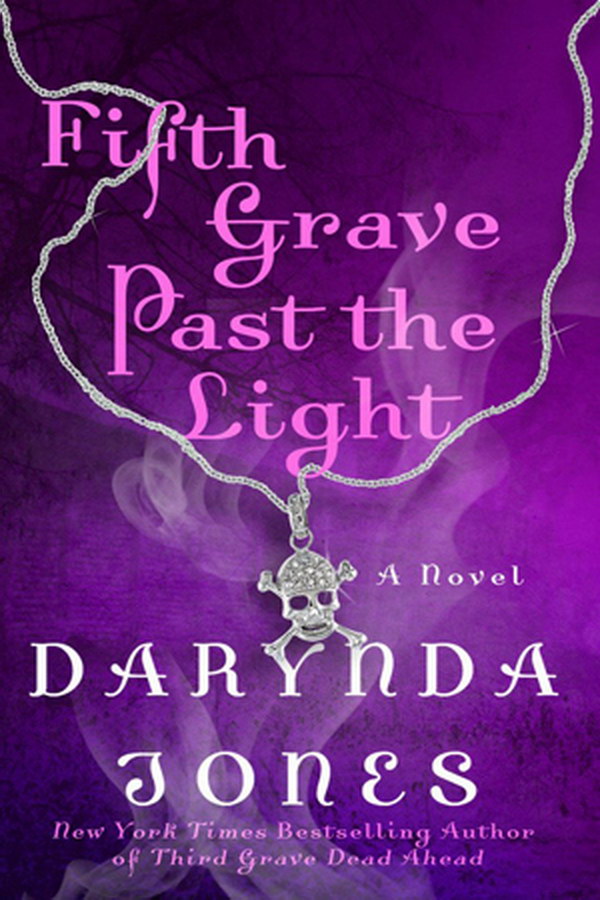
Fifth Grave Past the Light Font
On the book cover, the title "Fifth Grave Past the Light" appears to be written in Dalliance Roman by Frank Heine, which was inspired by letters found on an ancient map. This is a commercial font and can be purchased here.